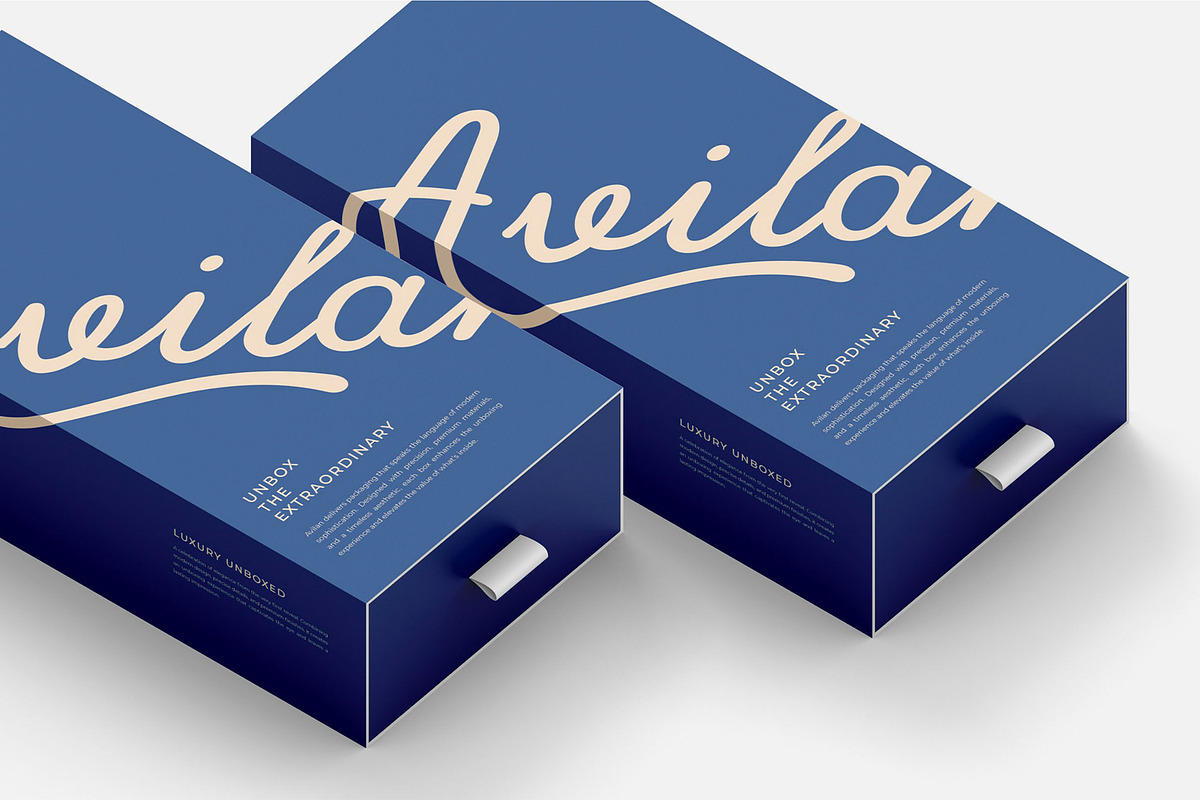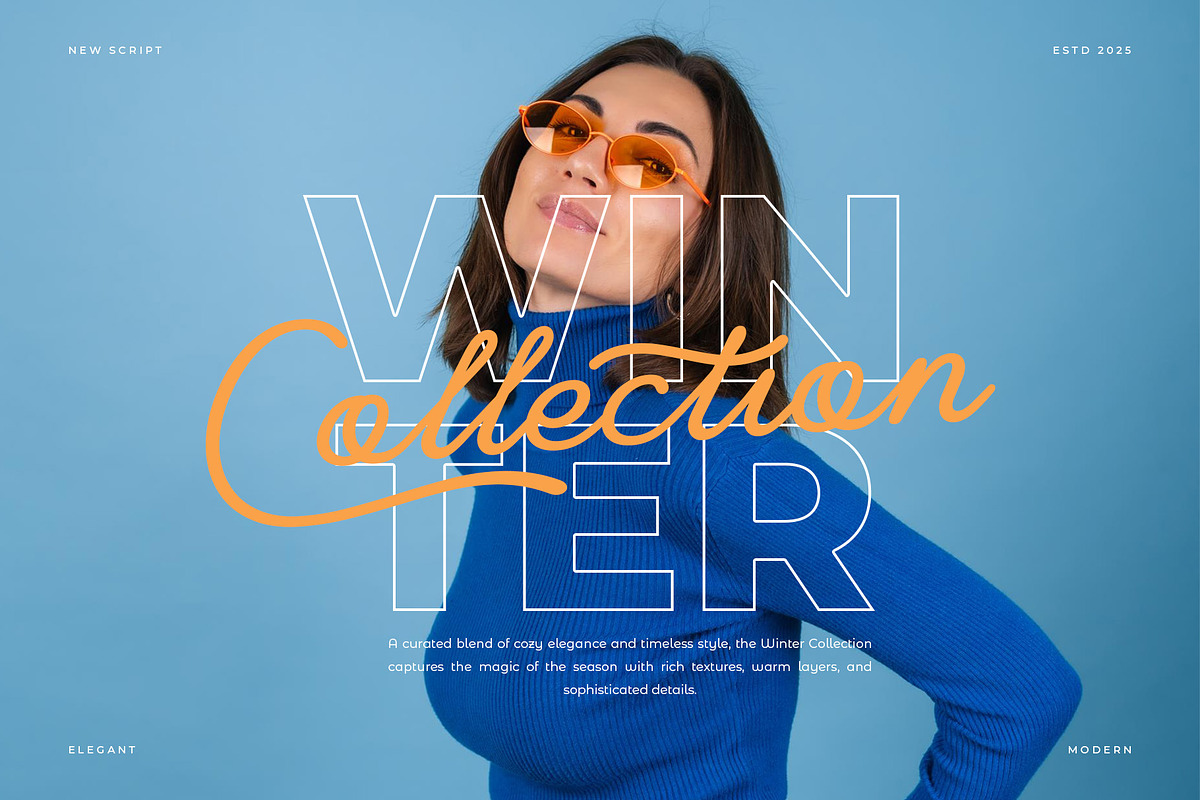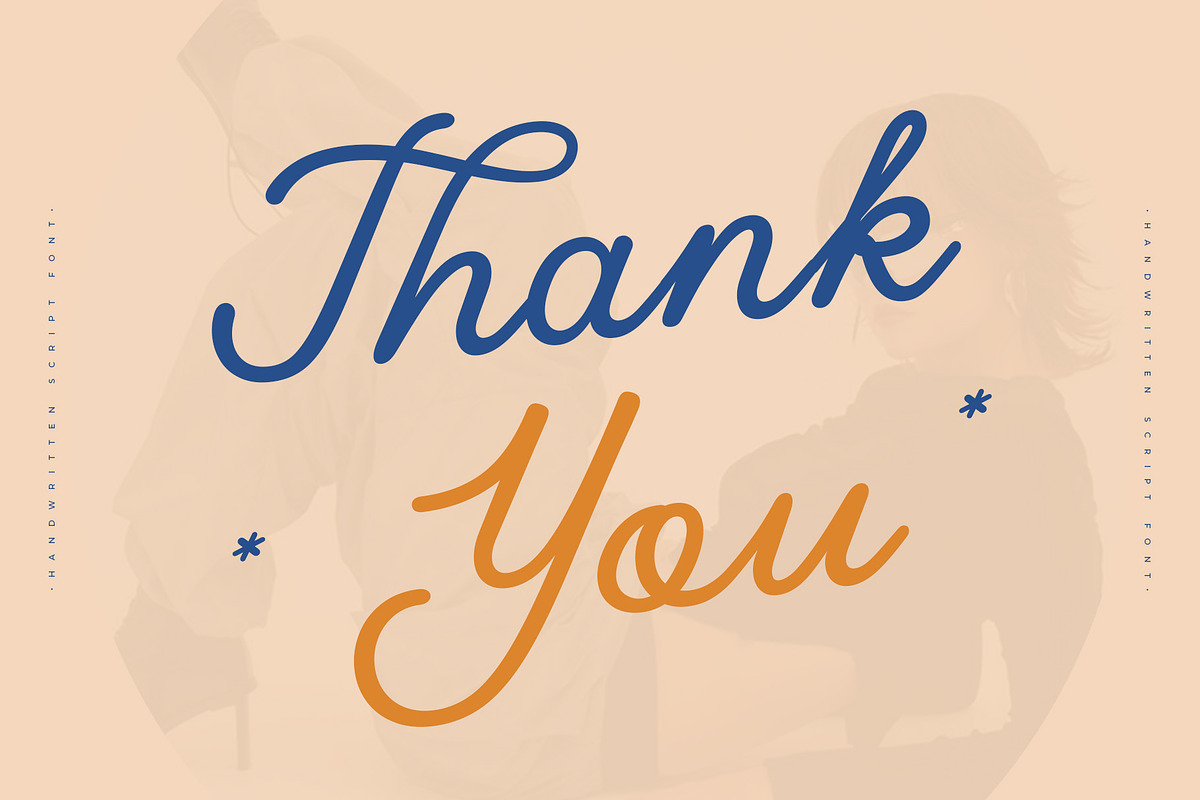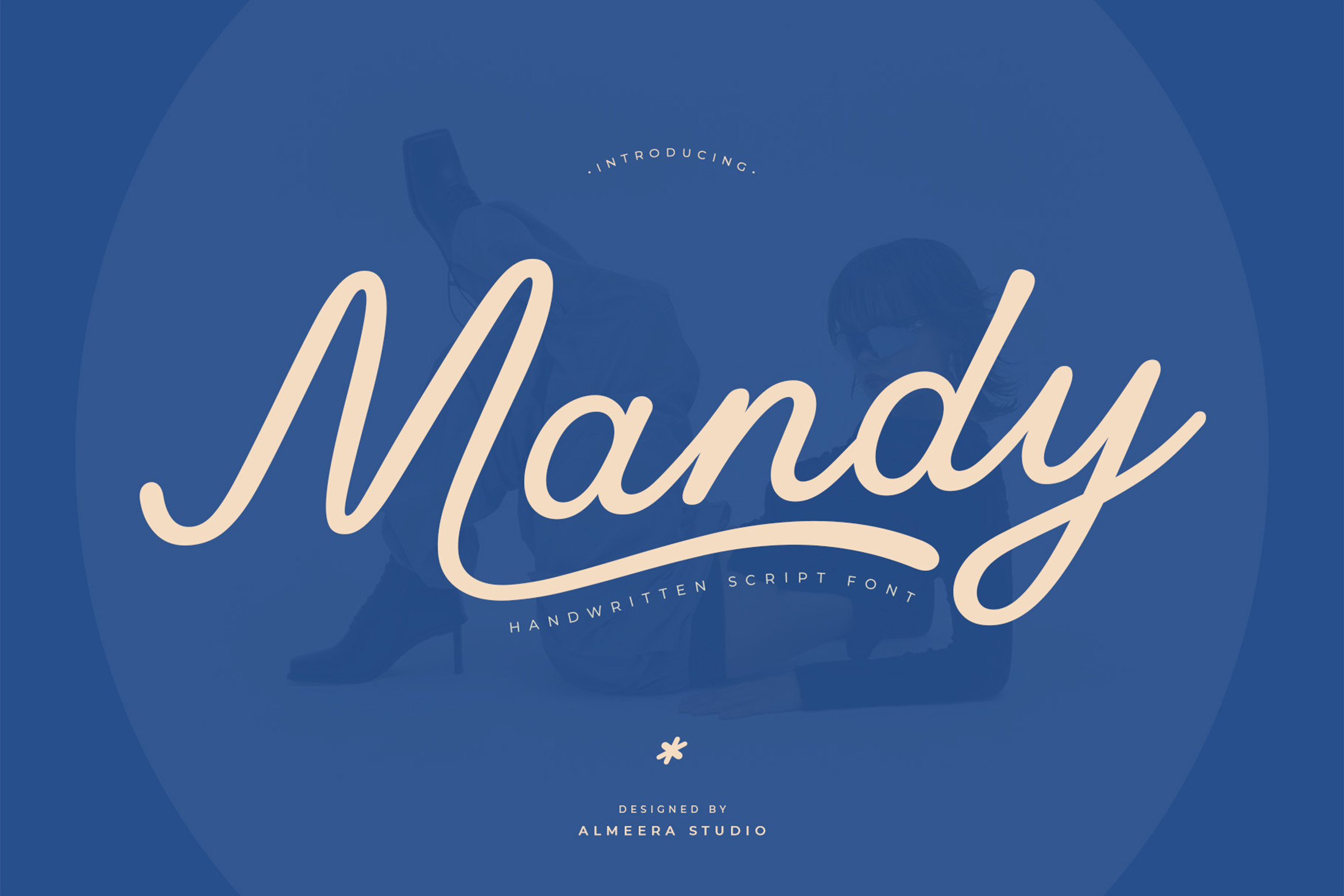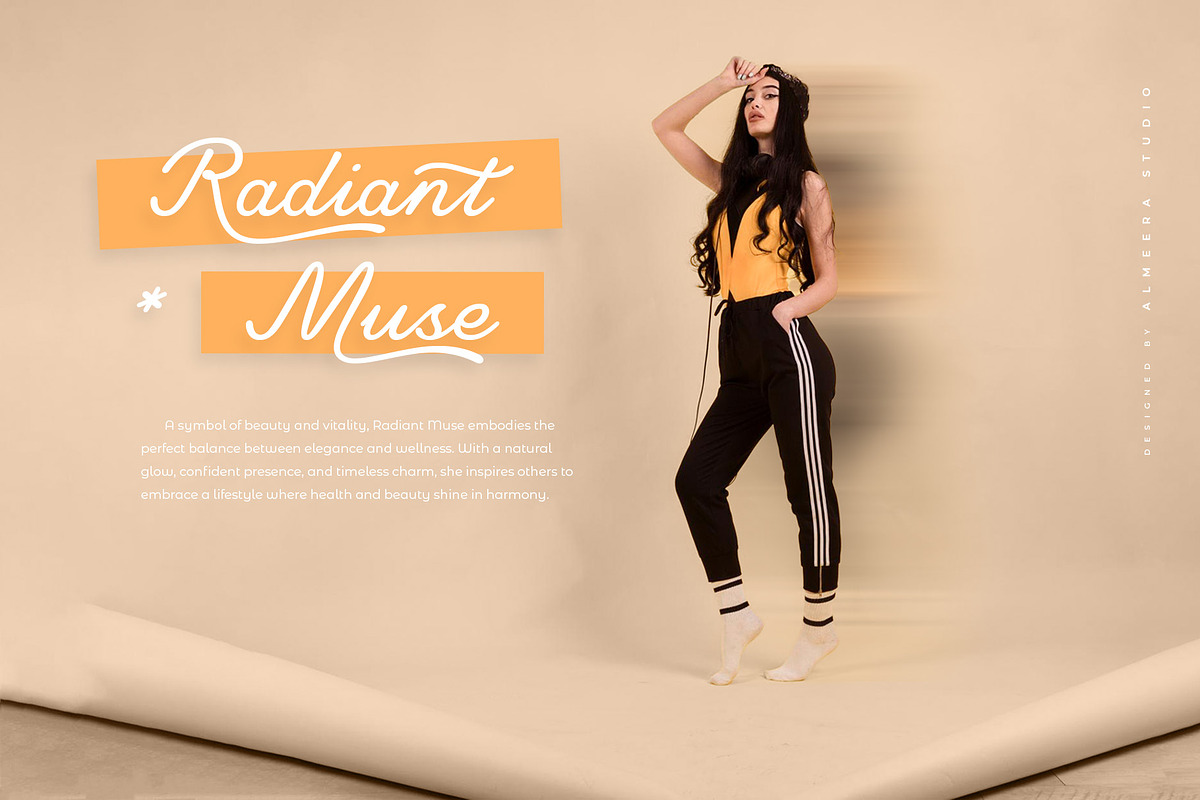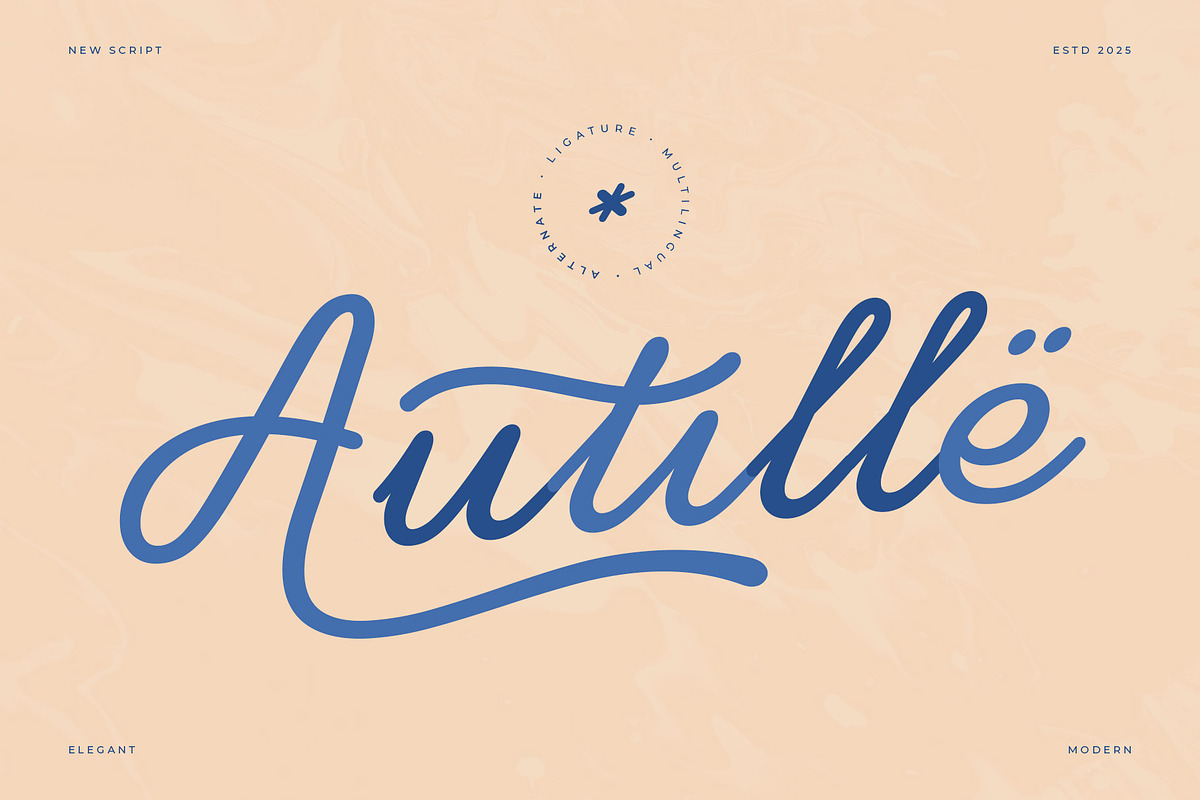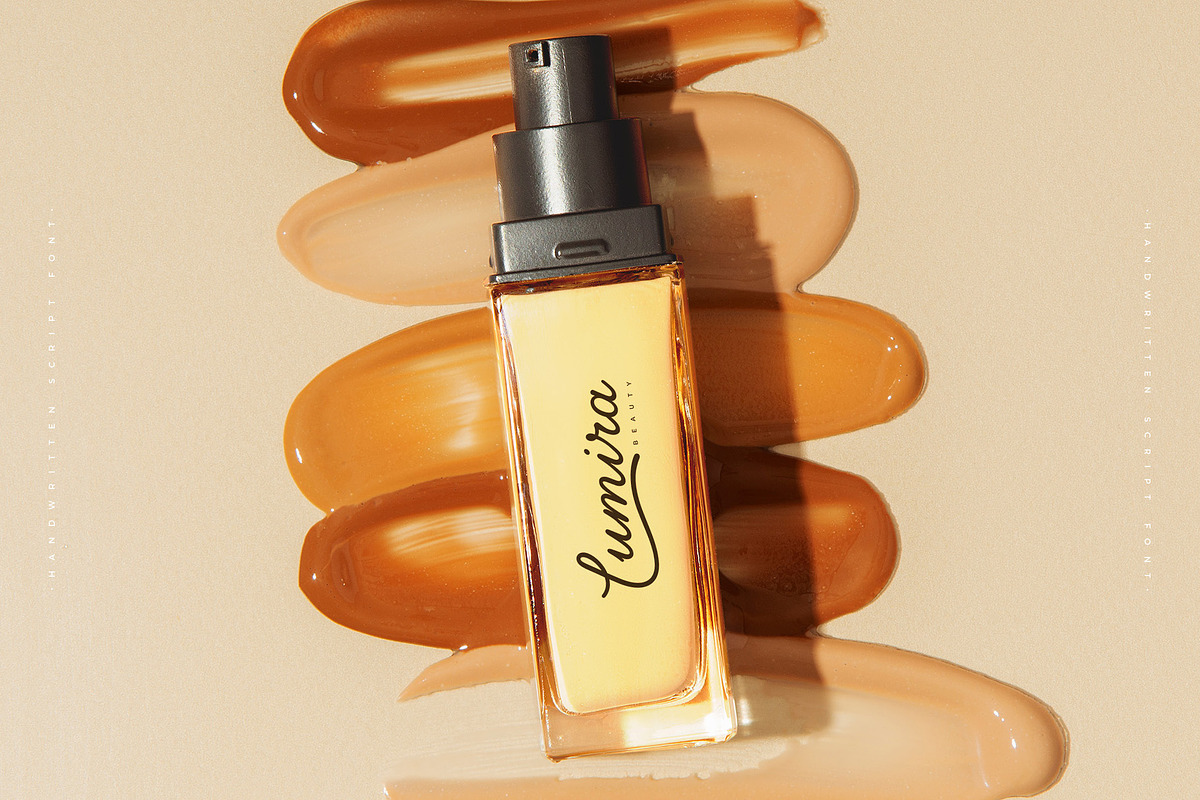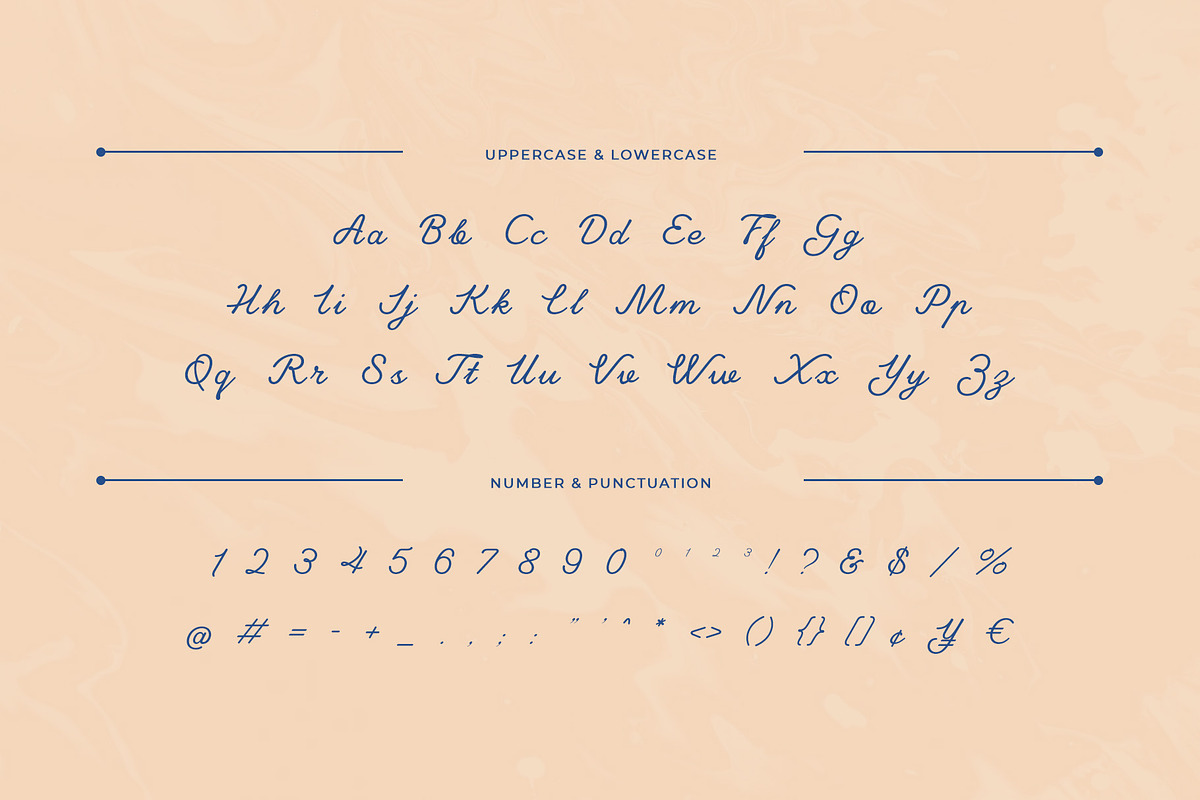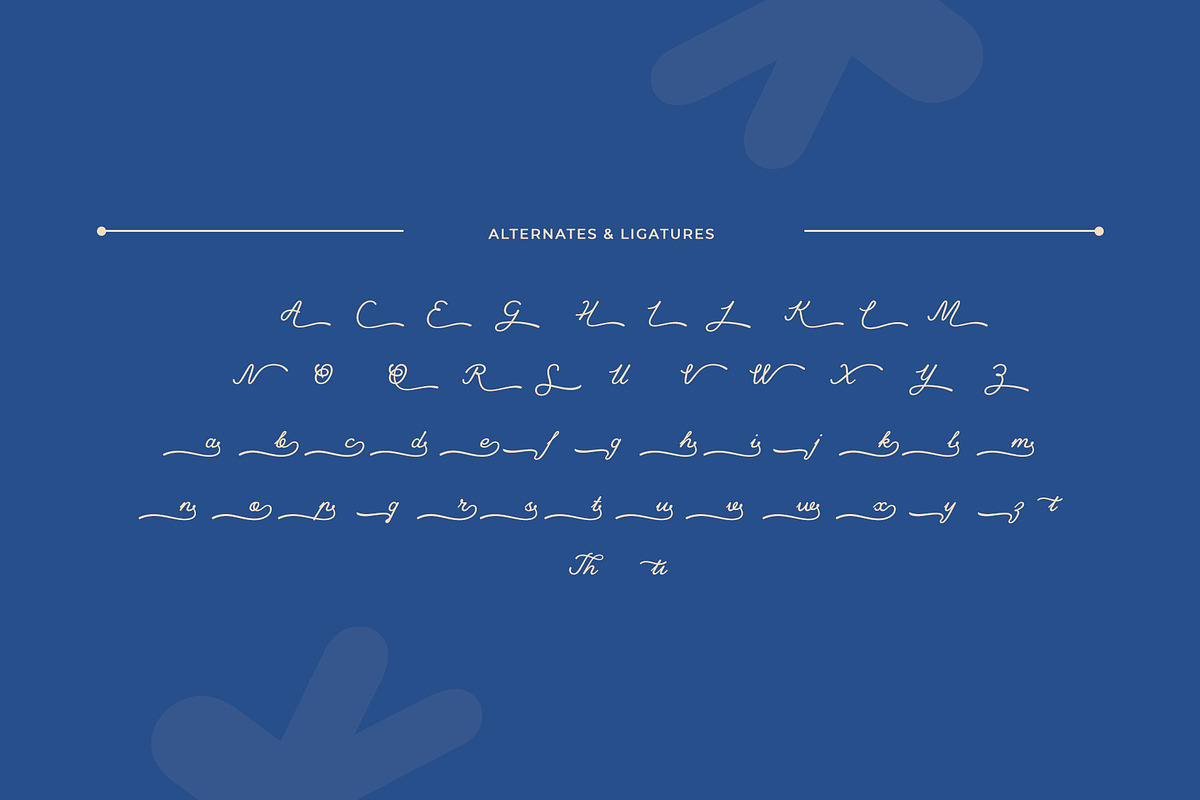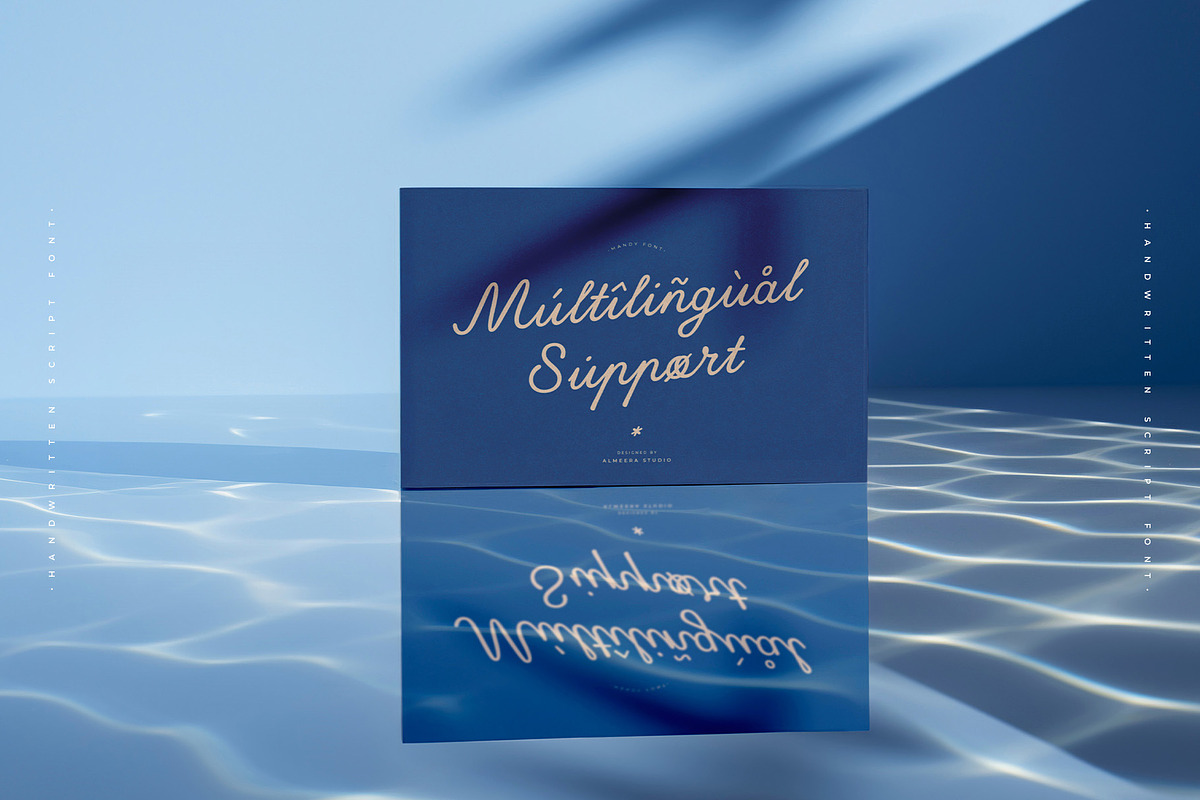
Mandy – Script Font
Fresh, friendly, and full of personality, Mandy is a handwritten script font that’s as approachable as it is stylish. Designed with smooth curves and a modern, casual flow, it’s perfect for personal branding, social media graphics, lifestyle blogs, posters, and everyday creative projects. Mandy strikes the balance between professionalism and warmth—making it an ideal choice for designers who want authenticity without sacrificing readability. Whether you’re designing a playful quote or a chic logo, Mandy brings a touch of effortless charm to your work.
- Playful alternates and swashy details
- Numerial